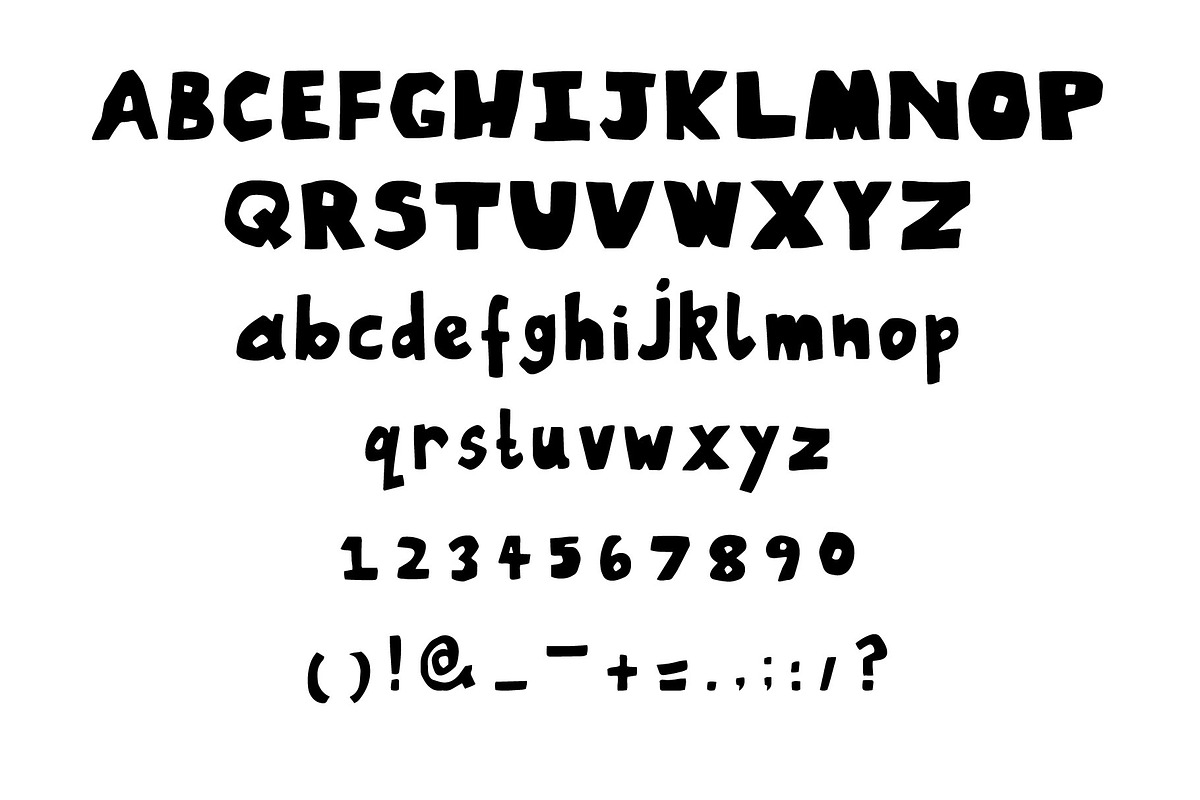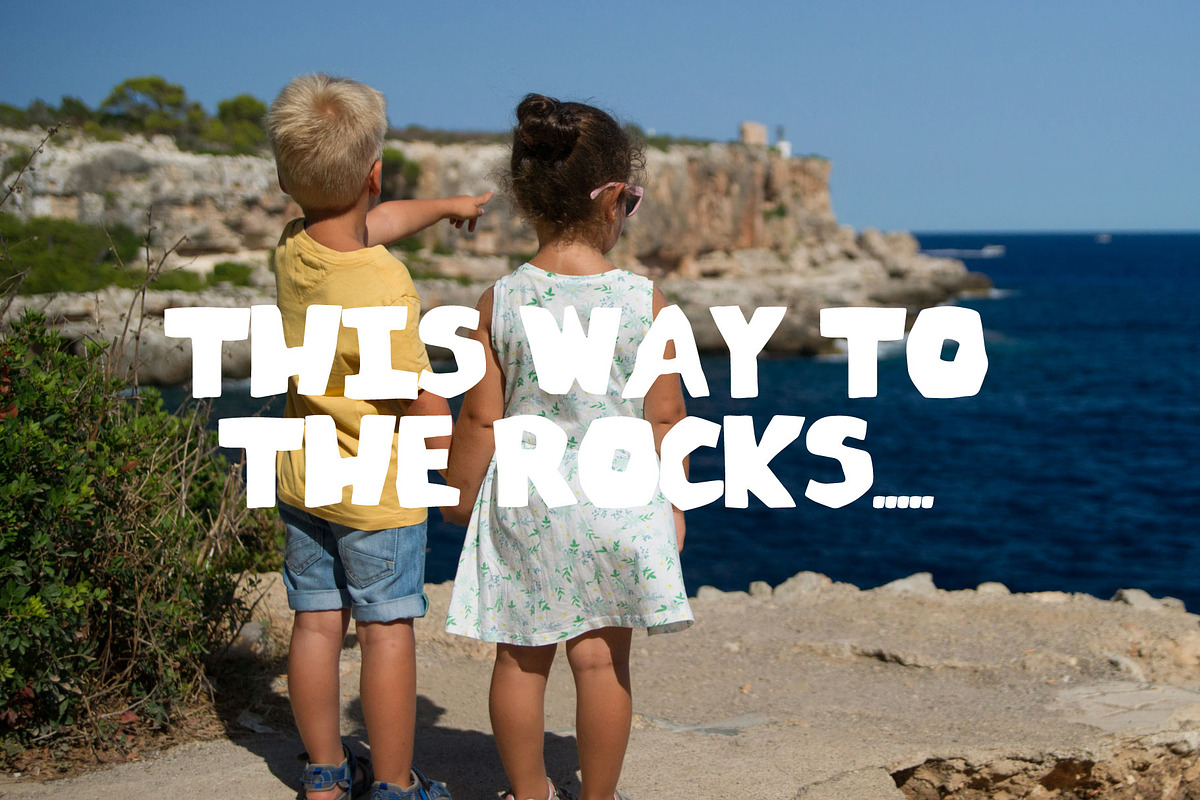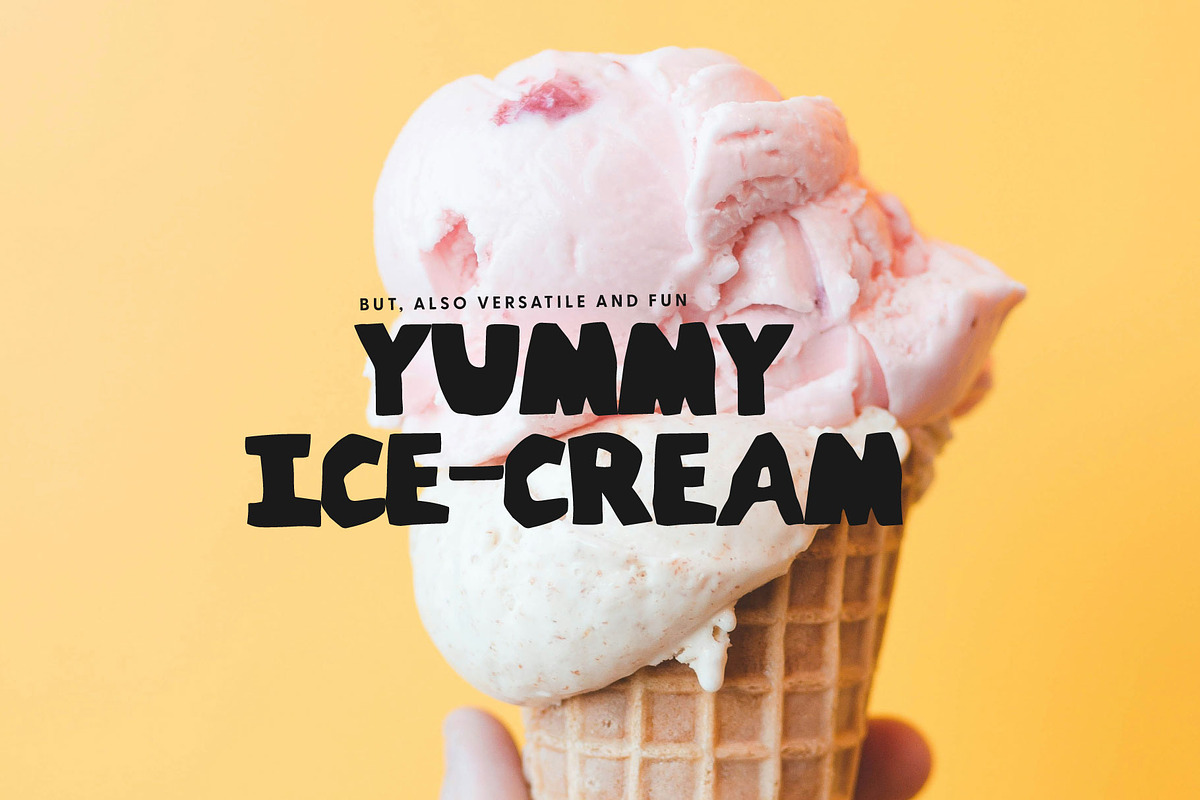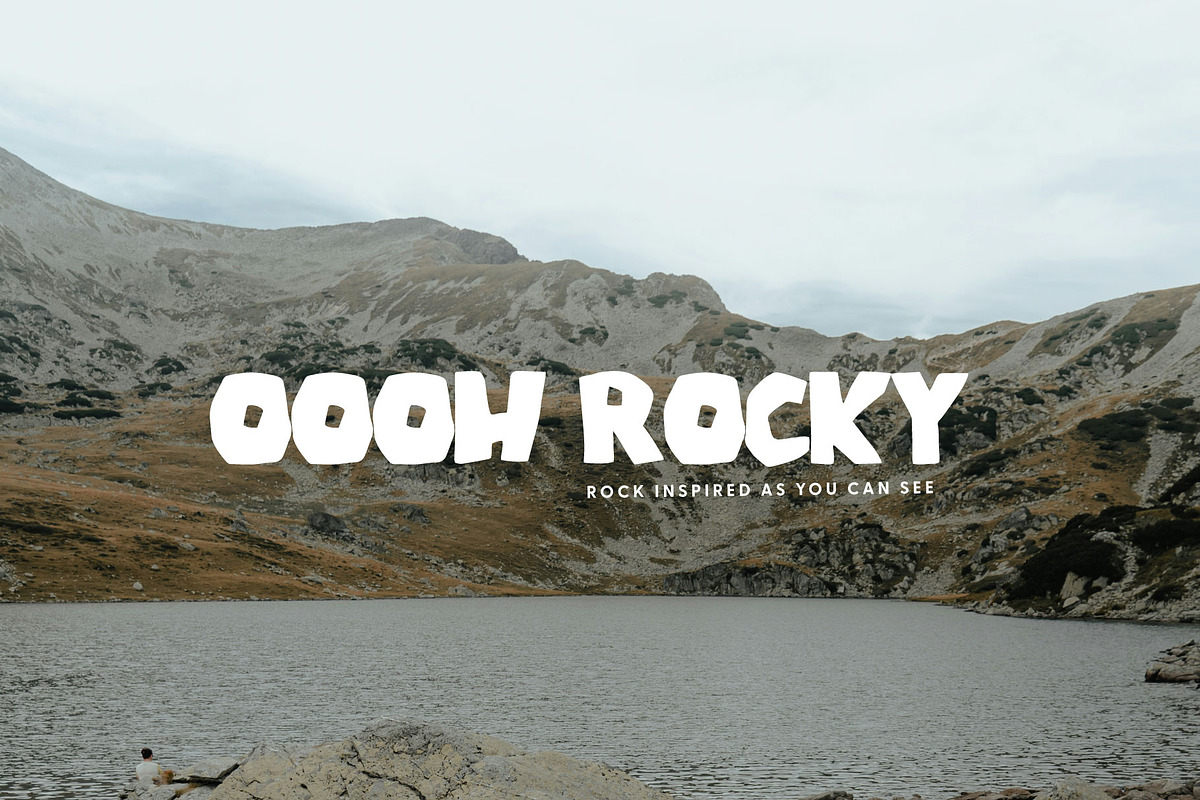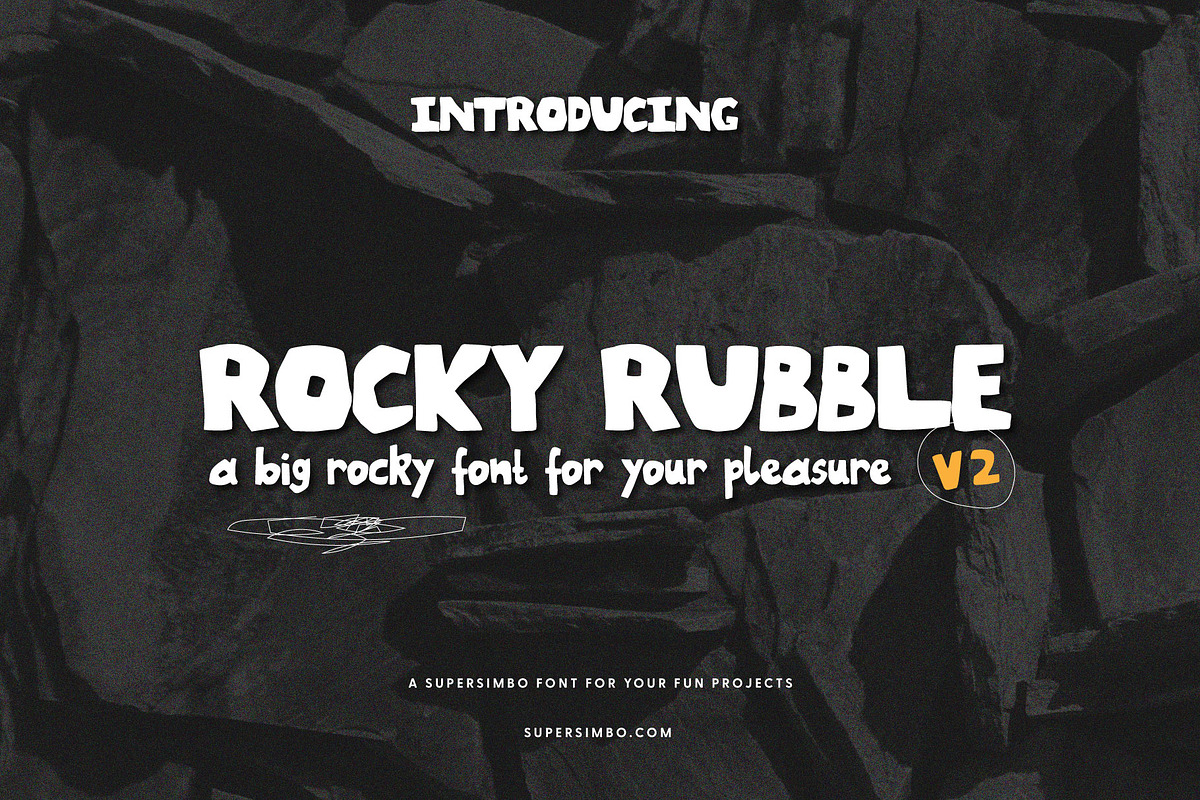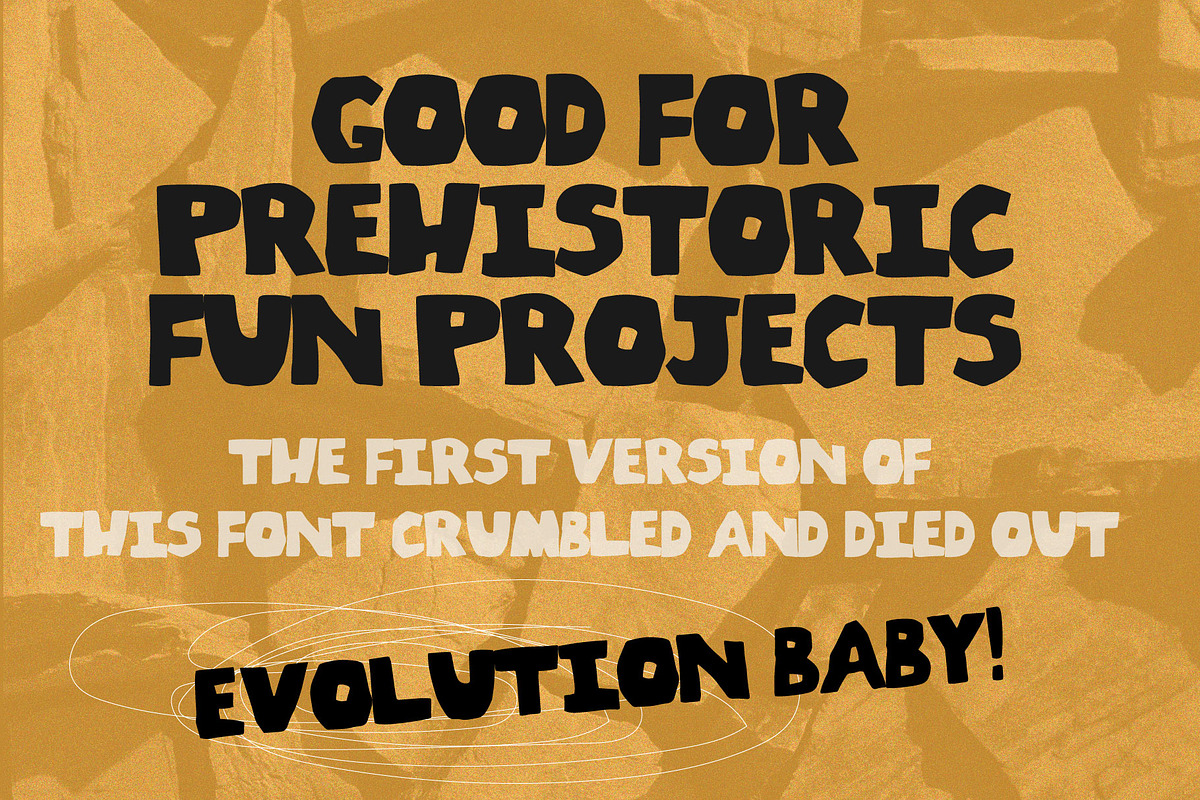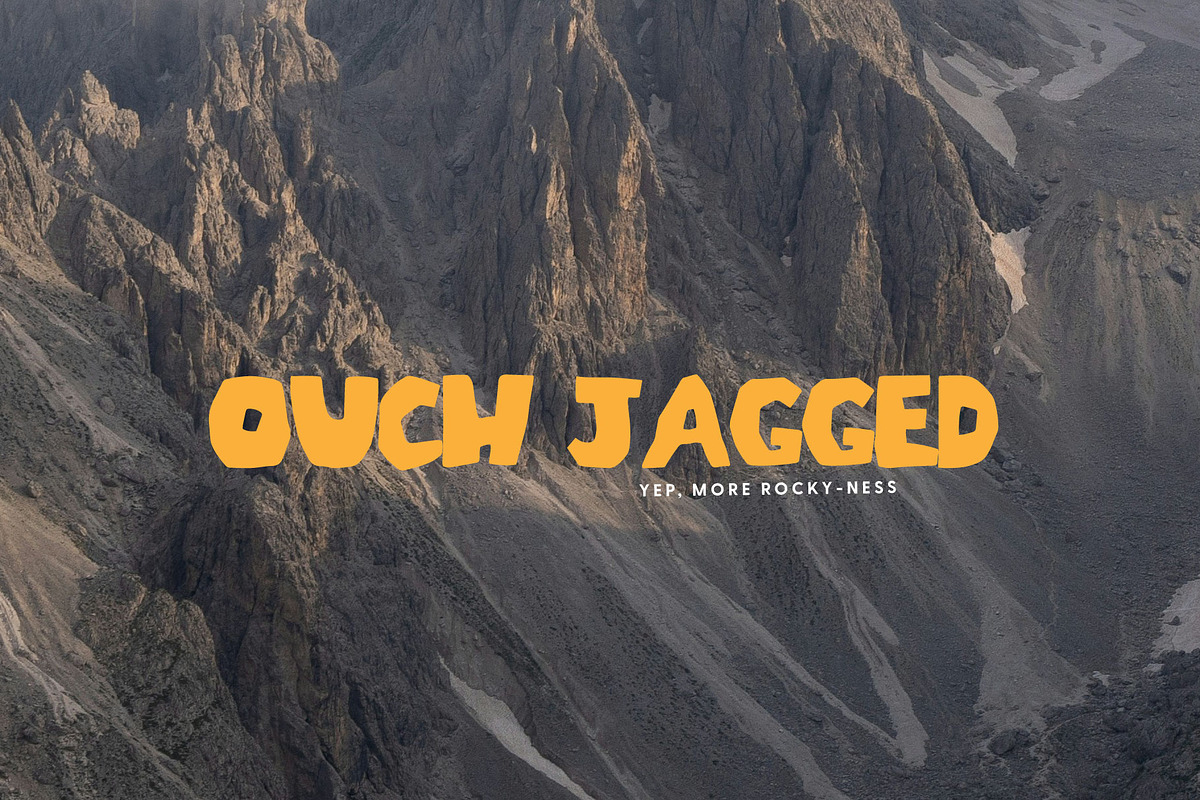
Rocky Rubble v2 Hand drawn font
Rocky Rubble V2 is a fun big rocky font for your fun projects. Rocky, chunky but also playful, this hand drawn font makes an impression...